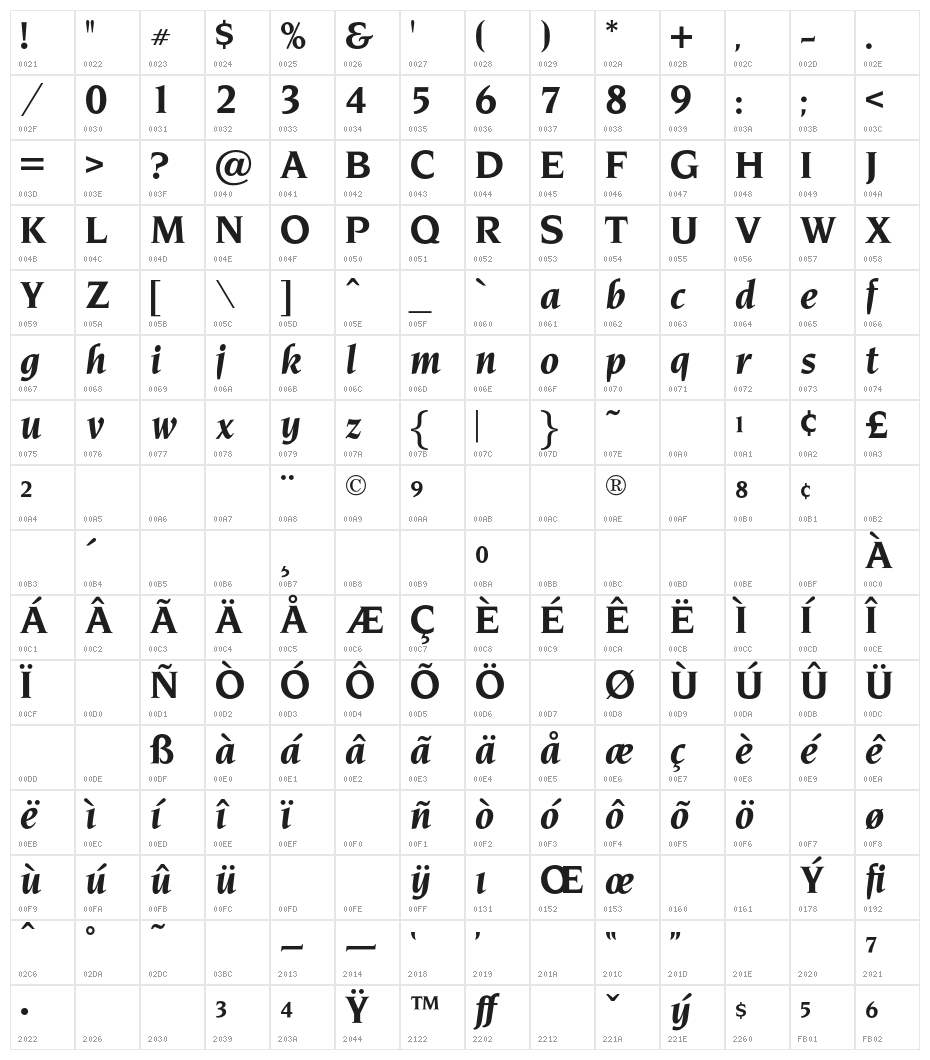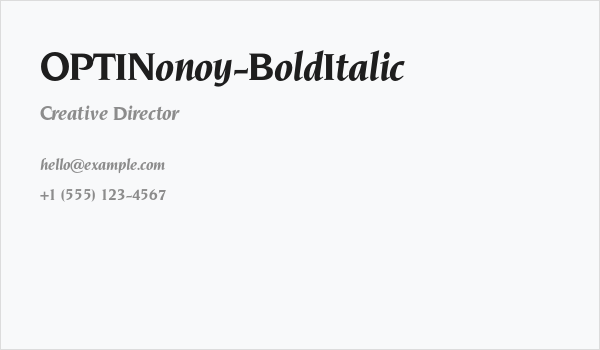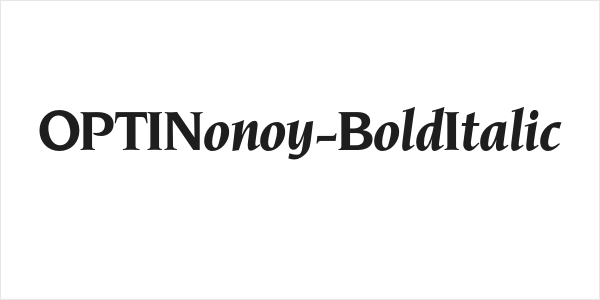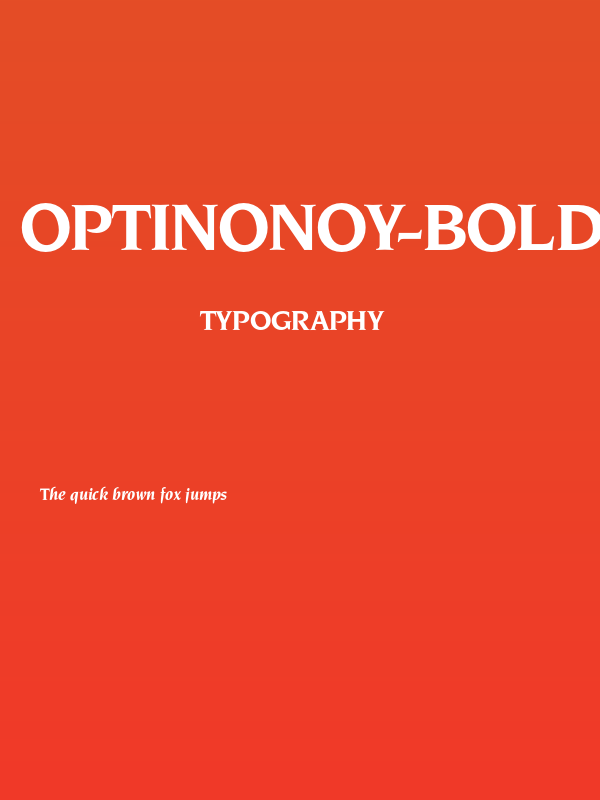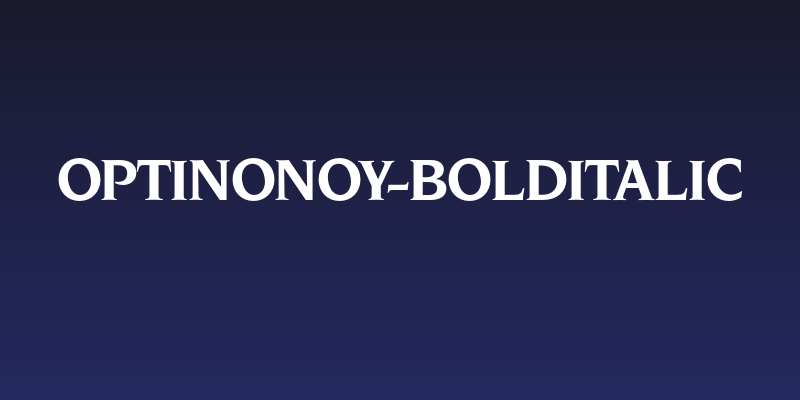
OPTINonoy-BoldItalic Font
OPTINonoy-BoldItalic Description
This font exhibits a bold and italicized style, combining strong, thick strokes with a slight slant that adds dynamism and elegance. The uppercase letters are robust and commanding, while the lowercase letters maintain a consistent flow with a touch of flair. The numerals are clear and prominent, ensuring readability. Special characters are well-defined, complementing the overall aesthetic. The font's design is versatile, suitable for both modern and classic applications, making it ideal for impactful headlines and attention-grabbing text.